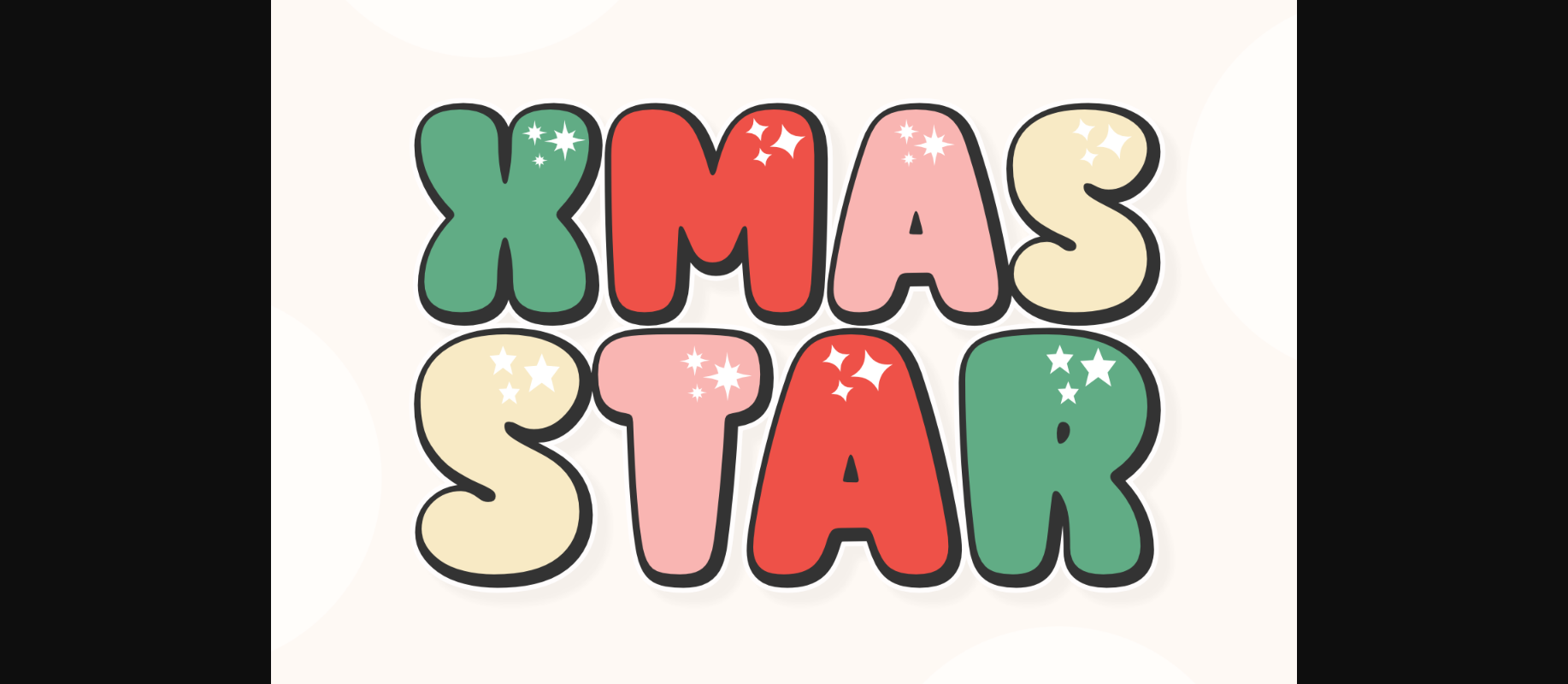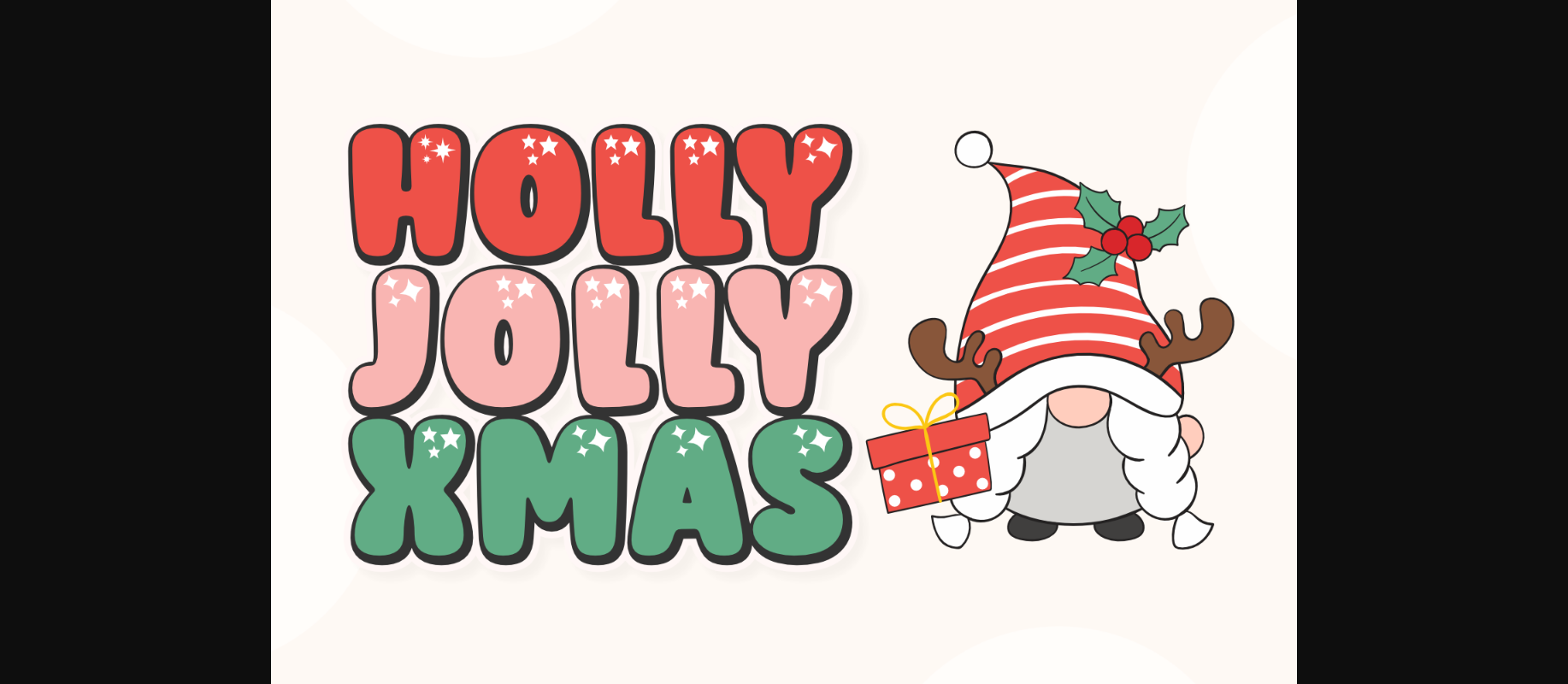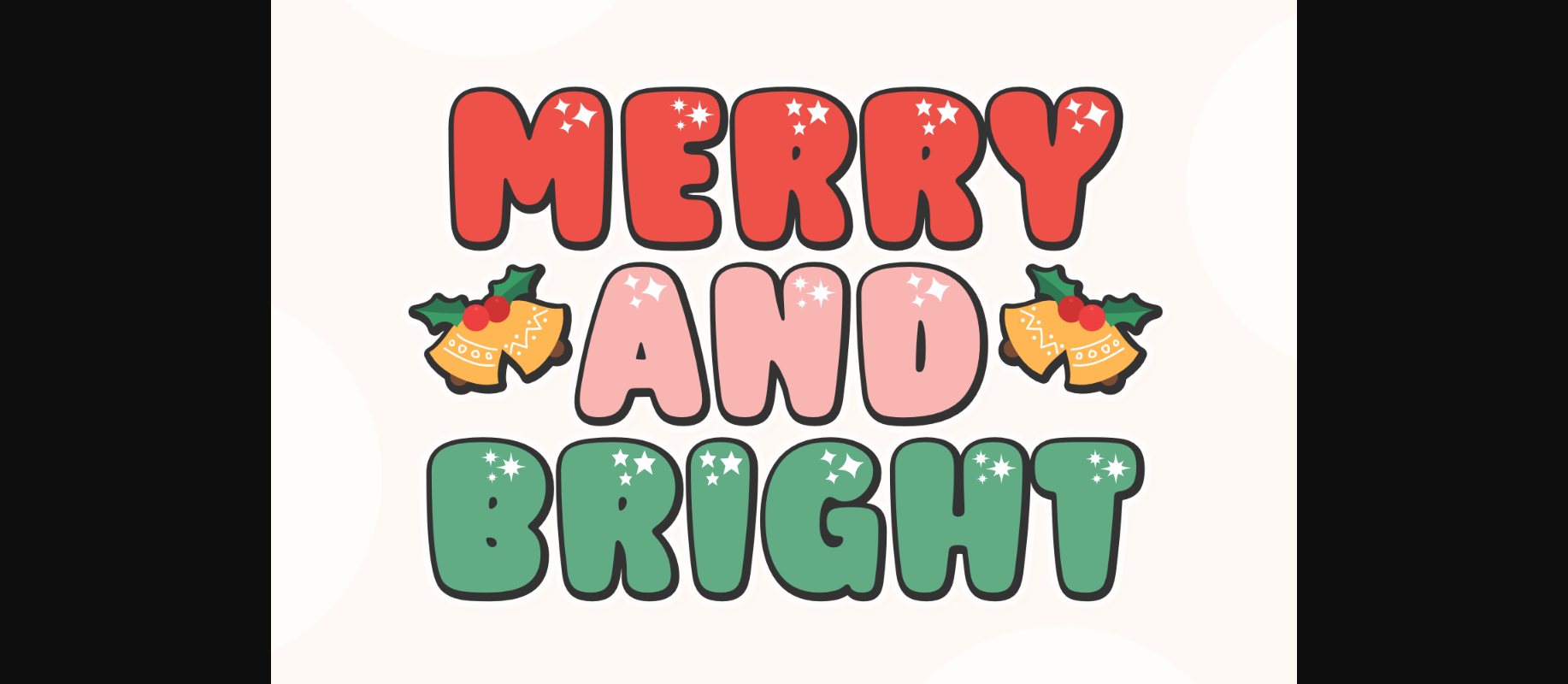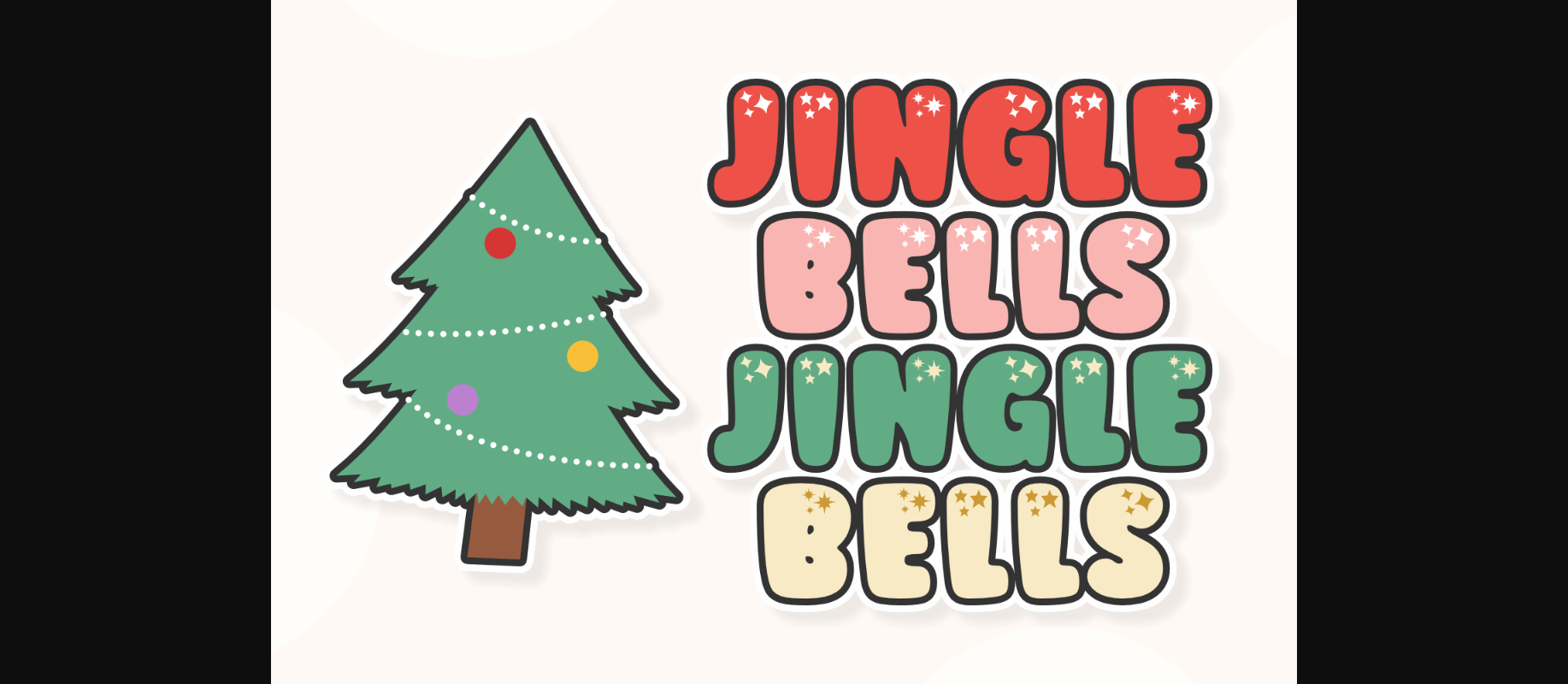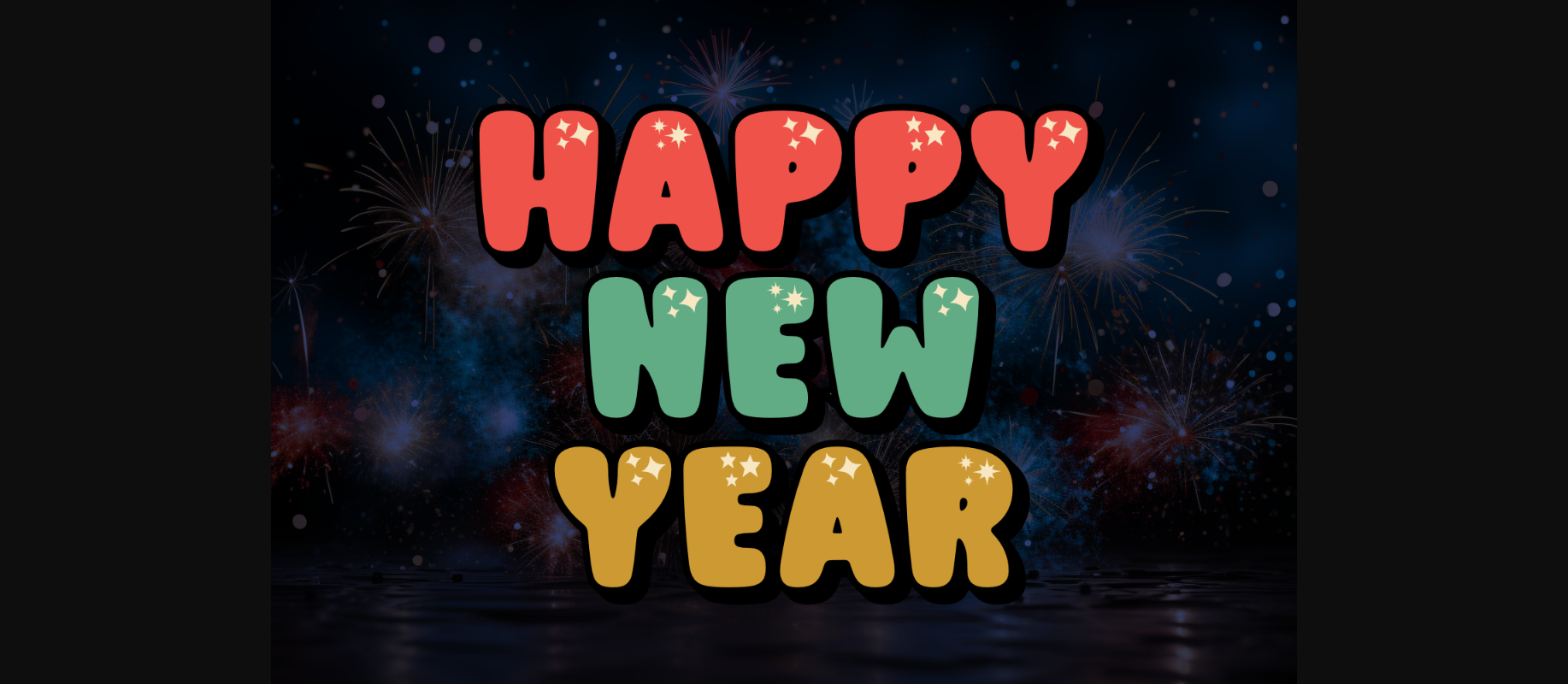
Xmas Star Font
About Xmas Star Font
Xmas Star is a delightful and cute decorative font adorned with tiny stars, adding a touch of charm to your text. Perfect for festive projects and holiday-themed designs, this font brings a playful flair with its whimsical starry details. Spread joy and warmth by incorporating Xmas Star into your creative endeavors, making your text sparkle with a festive and adorable vibe. Capture the magic of the season with this sweet and decorative font.